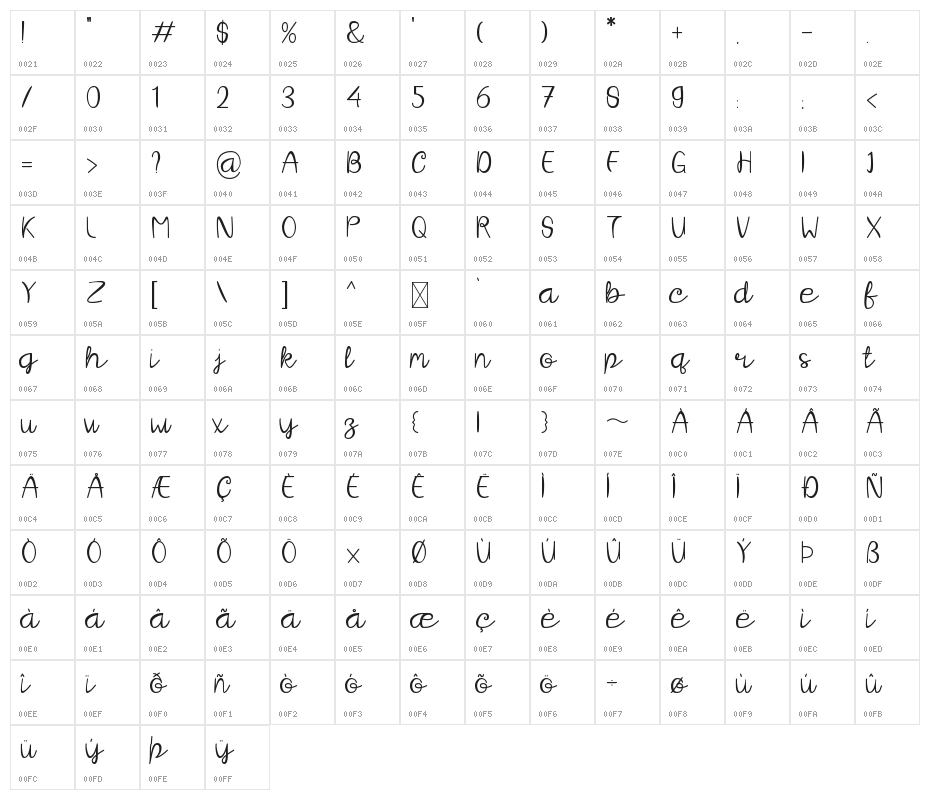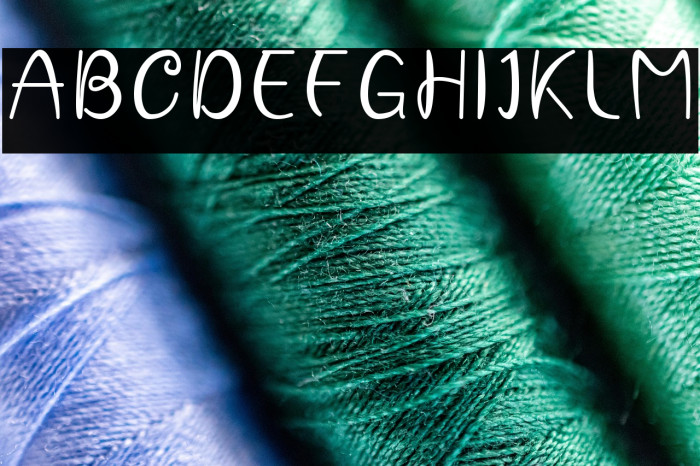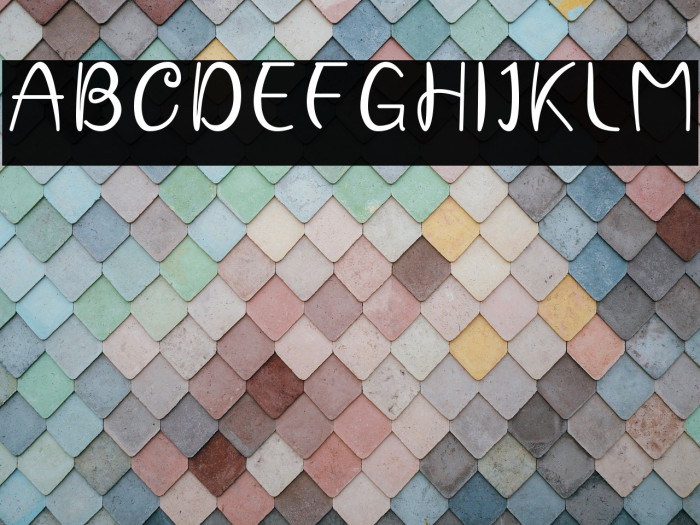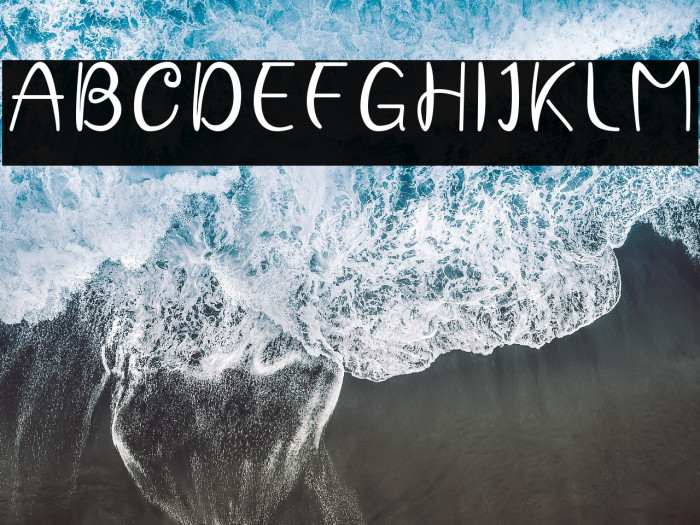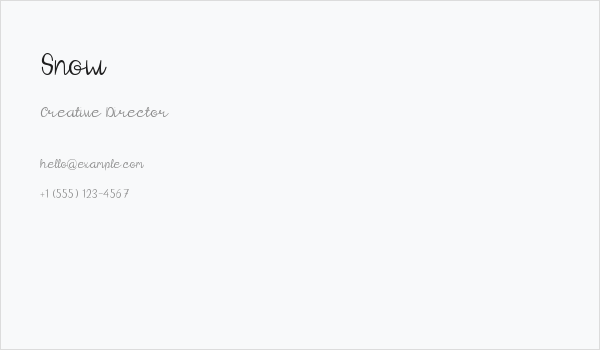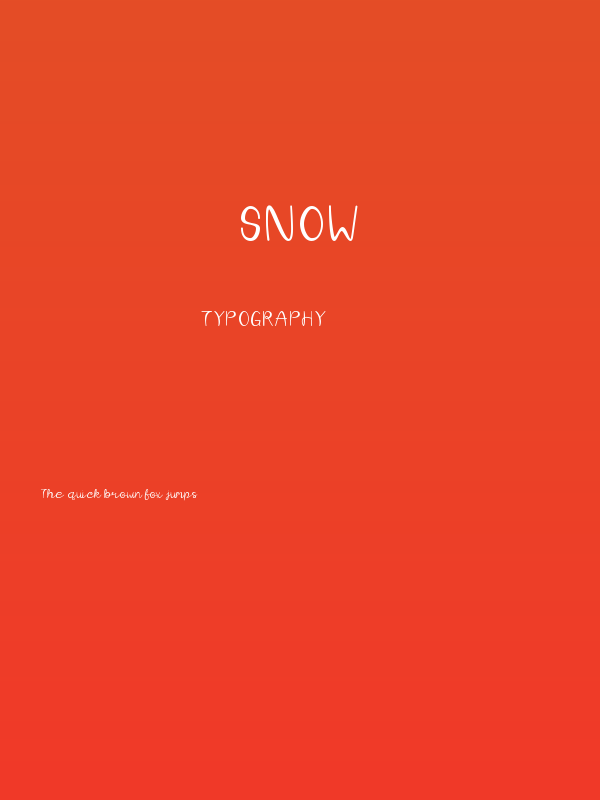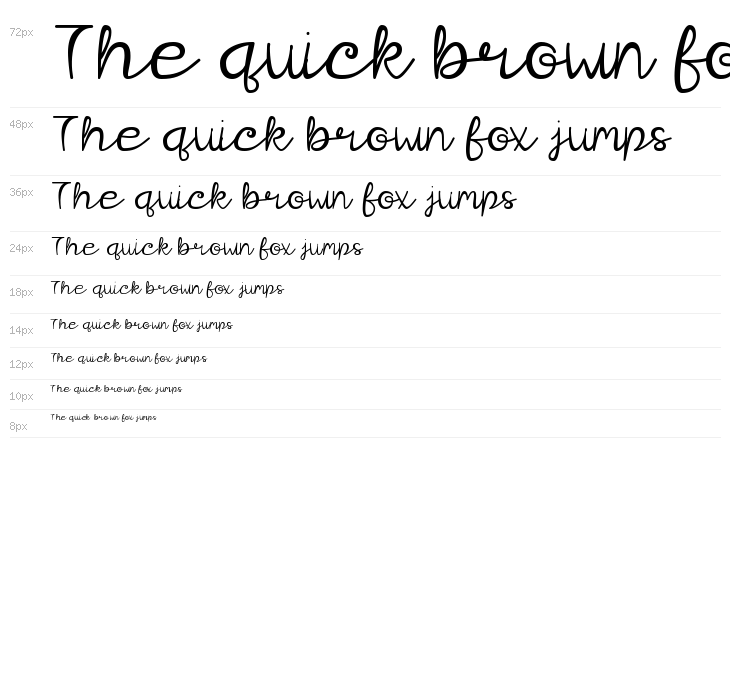
Snow Font
Snow Description
This font features a playful and casual handwritten style, characterized by smooth, flowing curves and a consistent stroke width. The uppercase letters maintain a uniform height, while the lowercase letters exhibit a slight slant, enhancing the informal aesthetic. The numerals are clear and legible, matching the overall style of the alphabet. Special characters are creatively designed, adding to the font's charm. This font is versatile, suitable for projects that require a personal touch or a friendly, approachable feel.
| Overall Style | Casual |
| Use Case | Logos, Headlines, Informal Text |
| Proposed Projects | Ideal for greeting cards, invitations, personal branding, and social media graphics. |